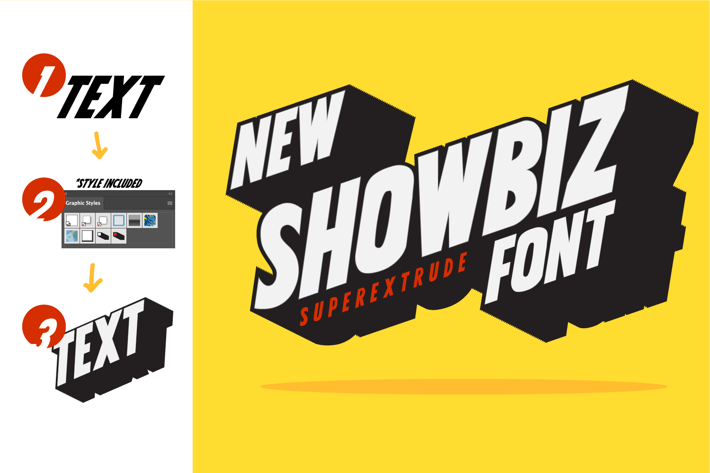
Showbiz, sharp fancy headline font
Showbiz sharp extruded typeface
Now! Style included to enhance the appearance of the font.
also small guide also included to maximize the usage of the font.
Good for:
Headline
Packaging
Posters
t-shirt
* etc